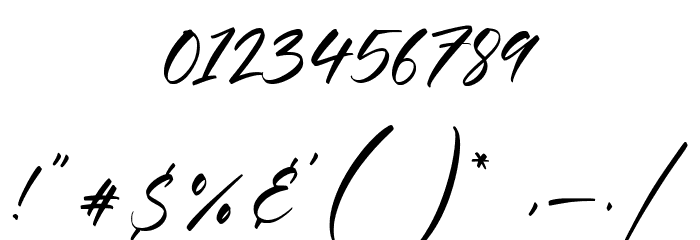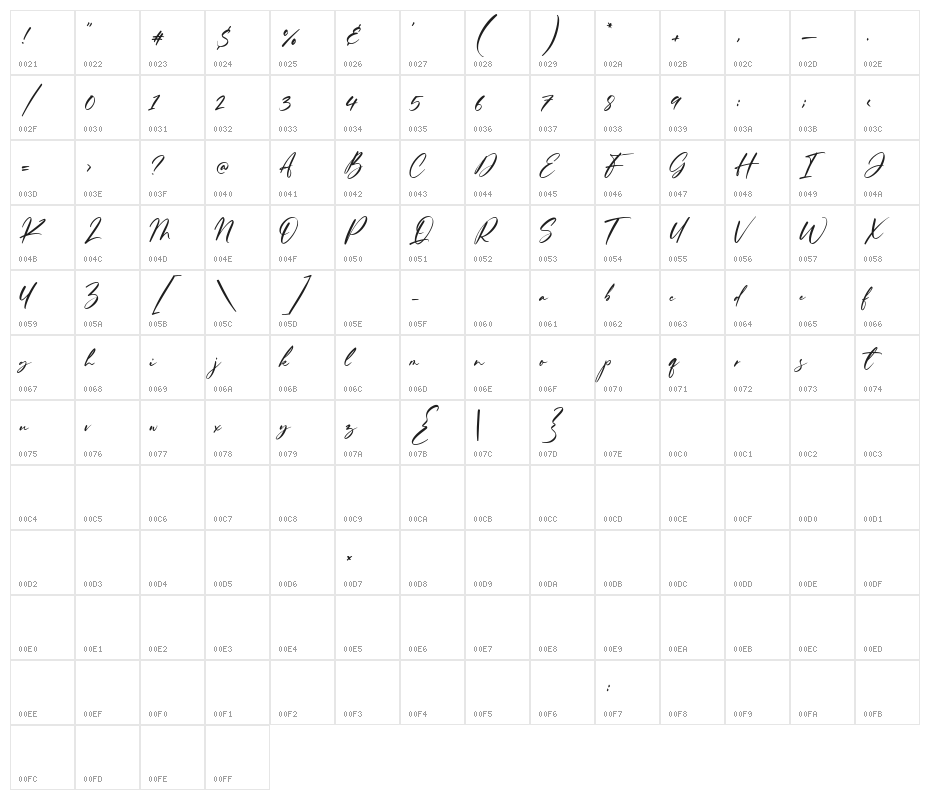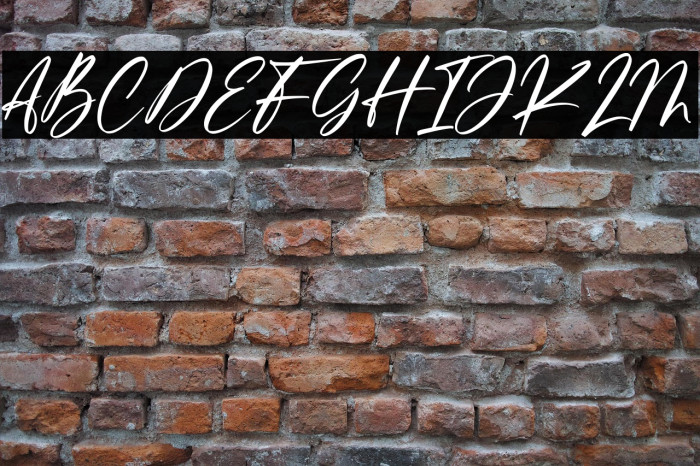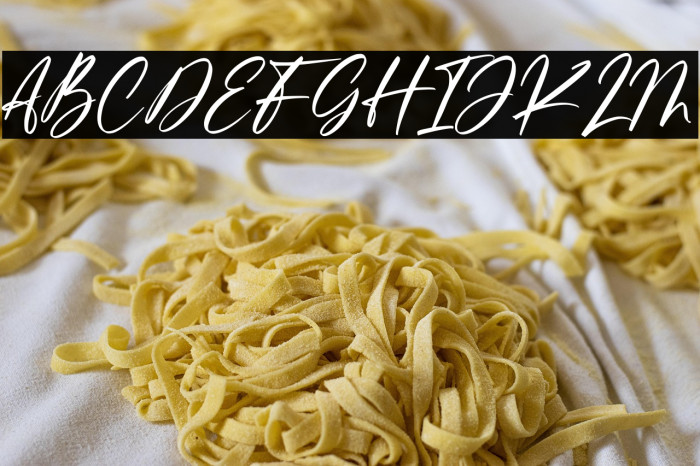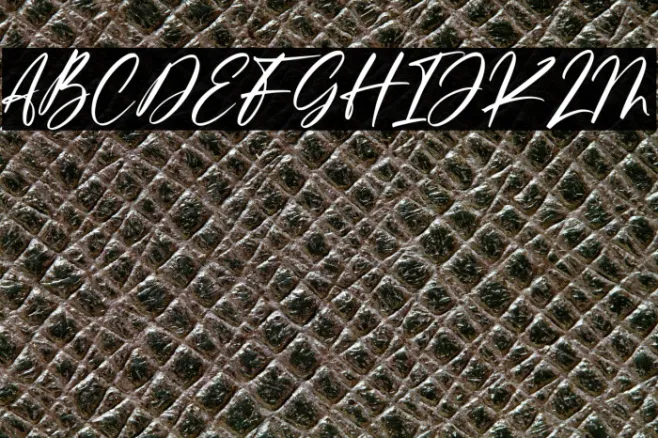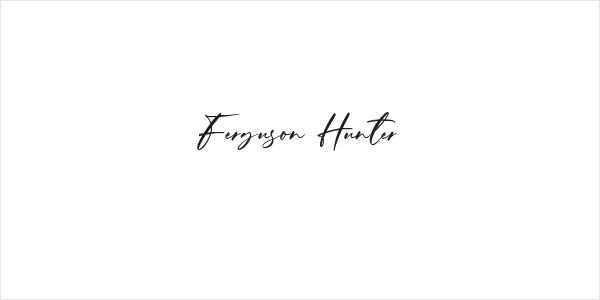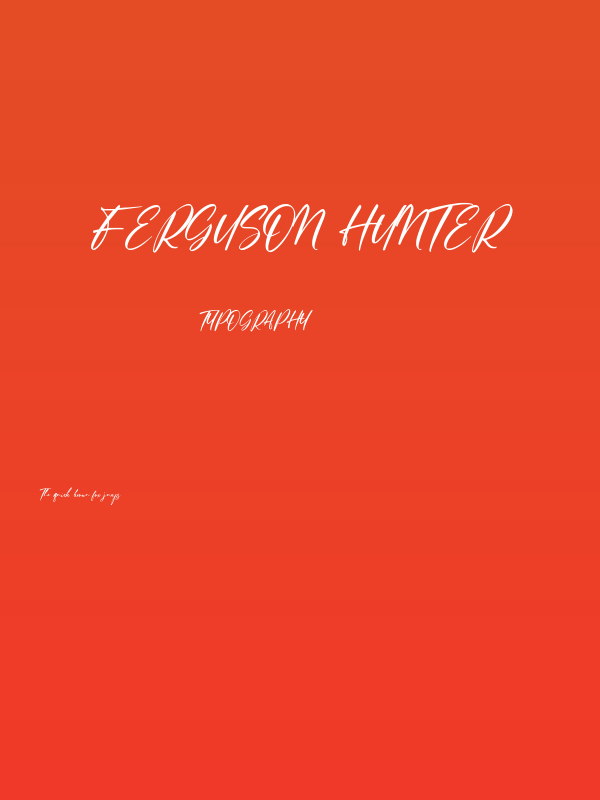
Ferguson Hunter Font
Ferguson Hunter Description
This font exudes a dynamic and elegant script style, characterized by its fluid, cursive strokes that mimic the natural flow of handwriting. The uppercase letters are bold and sweeping, with a slight slant that adds a sense of movement and grace. The lowercase letters maintain a consistent style, complementing the uppercase with their smooth, connected forms. Numbers and special characters are crafted with the same attention to detail, ensuring a cohesive look across all elements. The overall appearance is both sophisticated and approachable, making it suitable for a variety of creative applications.